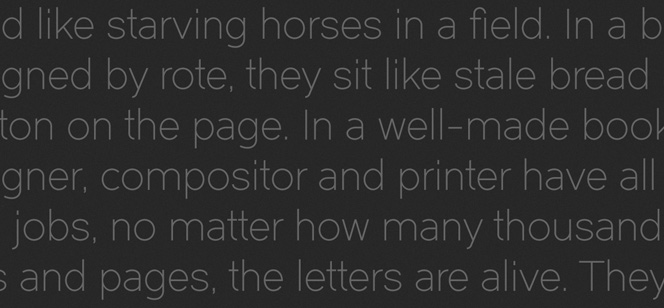
Dual font
Dual font is a full width Sans Serif font with very strong experimental aspects. Although many typefaces have been called “experimental” in the past, we believe that this is the right word to describe Dual with its rectilinear lines and straight angles that give the font unique geometrical look without in any way impeding its legibility. It is a font that is appropriate for any kinds of users with its most attractive feature – 10 stylistic sets and 251 alternate glyphs. This graphical richness is designed to please anybody – from casual designers to the most devoted artists. To make things even better, Dual typeface comes with vast additional language support for North and South America and big parts of Europe.
Dual font is a font that will be additionally developed. Presently, it has three weights – 100, 300, 600, with three more – 200, 400, 500 set to be released by the end of the year in order to enrich the typeface and give more opportunities to its users.
Dual font is a brain child of the multiple award winning Canadian graphic designer Charles Dauod. It is the result of 15 years of experience in almost all aspects of the design and never ending search for visual perfection.
Dual font, with its 563 glyphs, is two fonts in one indeed. Use it with pleasure!
Designers: Charles Daoud
Publisher: CDType